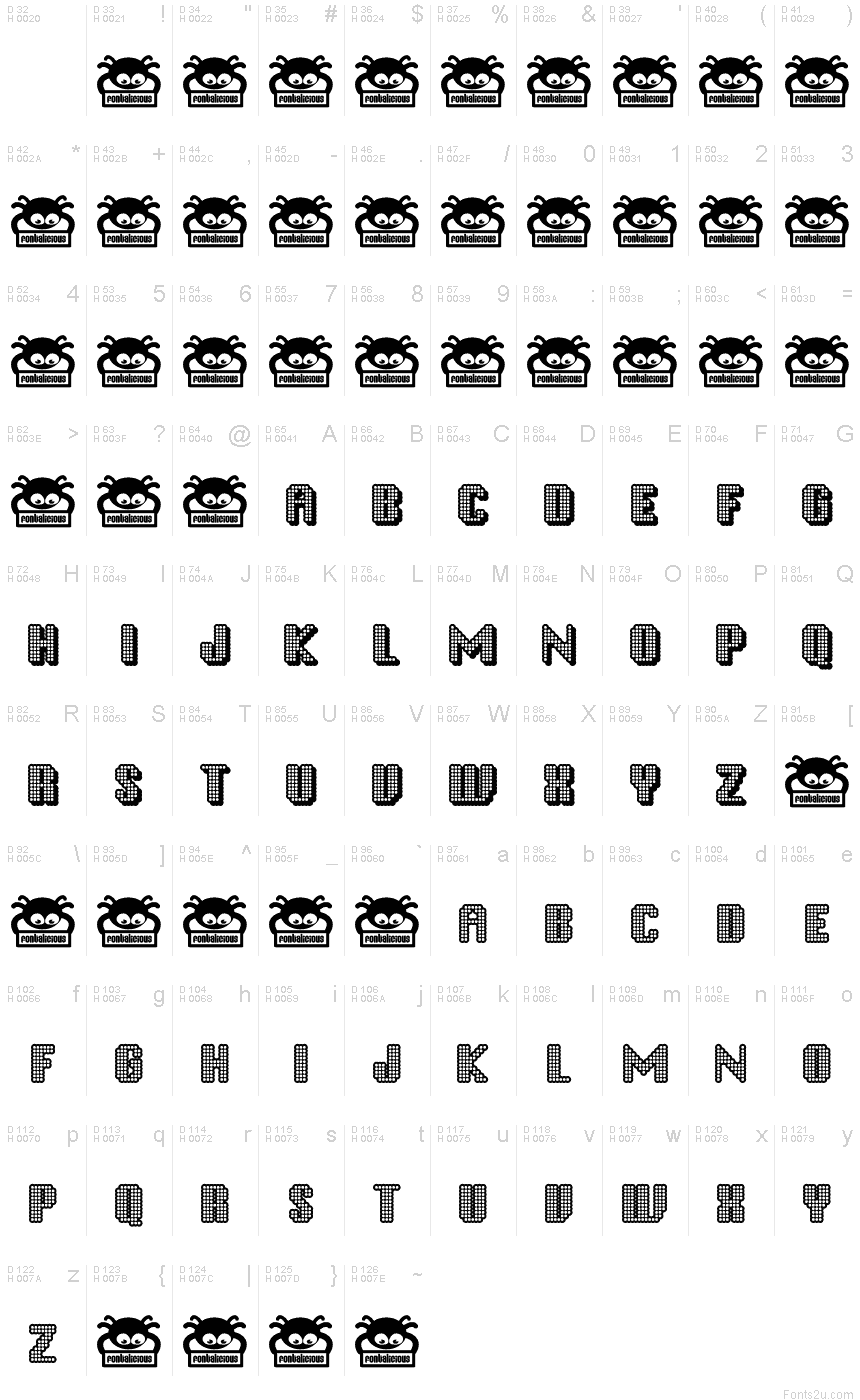
Disco Inferno
Disco Inferno font by Font"a"licious Fonts is a free groovy display typeface that looks like a wall of tiny stage lights snapped into letter form. Each character is packed with crisp round dots and softened corners, giving text the feel of a blinking disco marquee or a glittering dance-floor sign. It’s bold, chunky, and a little bit loud-the kind of lettering you can almost hear over a funk bassline.
This free font shines on retro party posters, 70s-themed event flyers, nightclub branding, album covers, bold social graphics, and theatrical signage where you want pure spectacle. Using Disco Inferno for short phrases or headlines at large sizes lets the “lightbulb” texture really pop; keep subtext in a simple geometric sans so the letters feel like they’re glowing center stage.